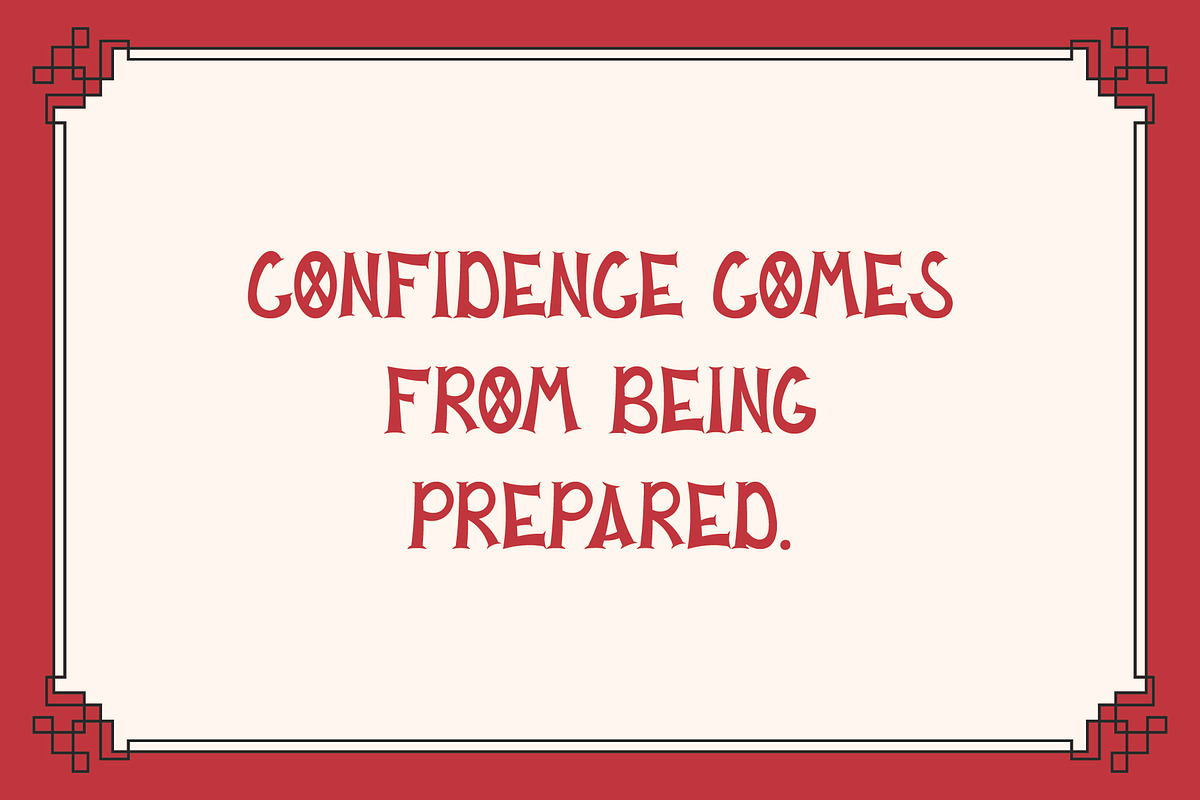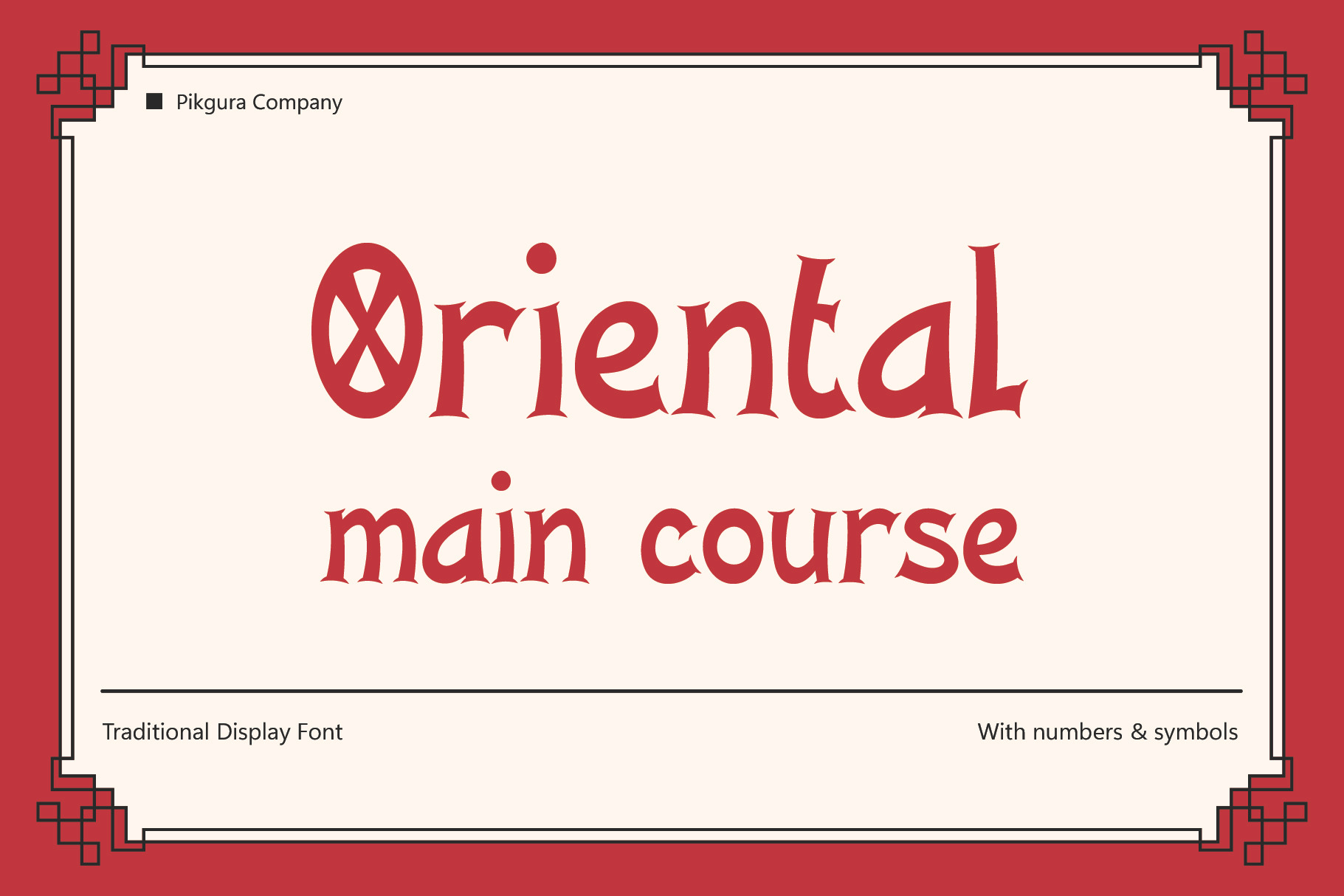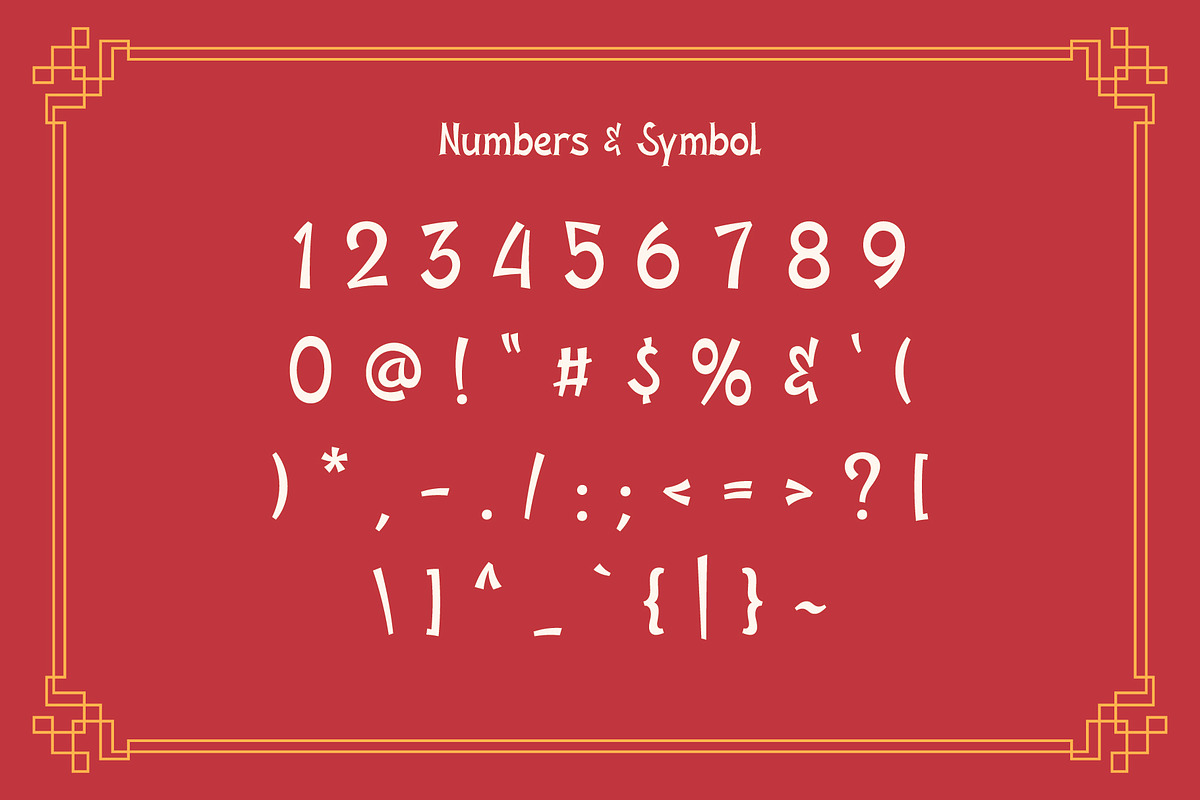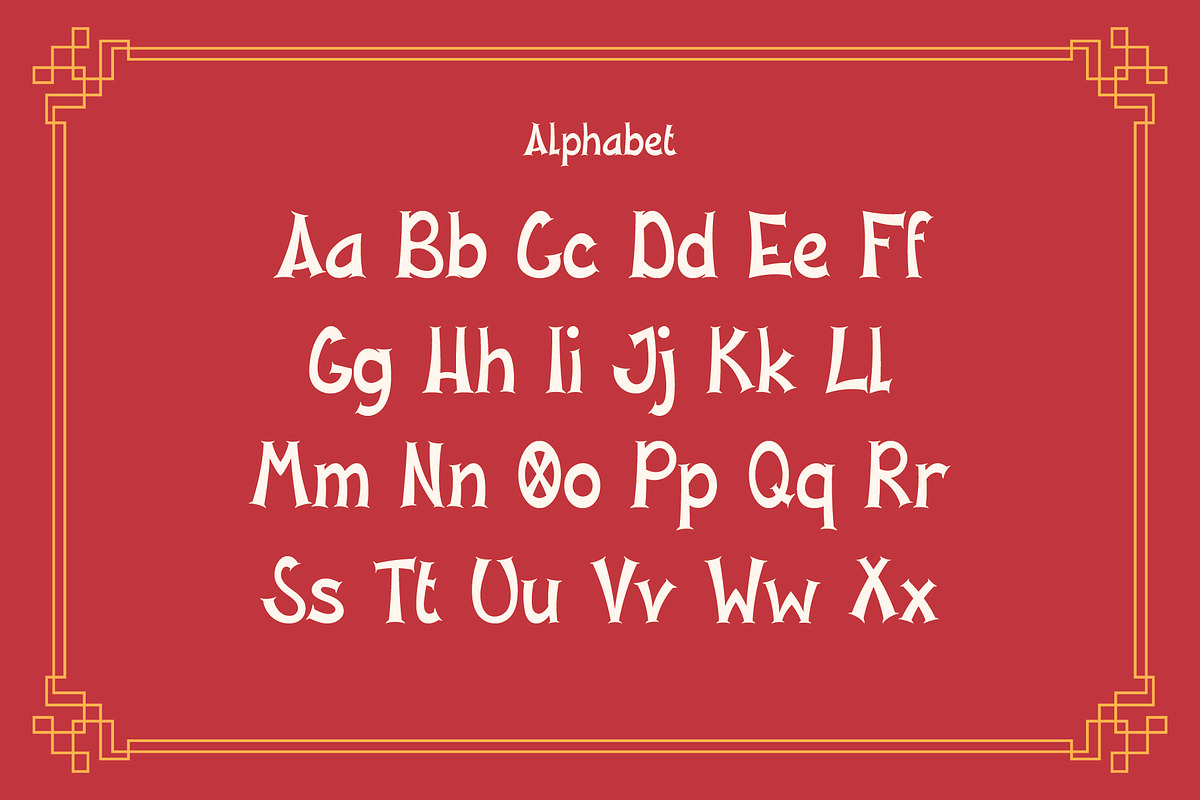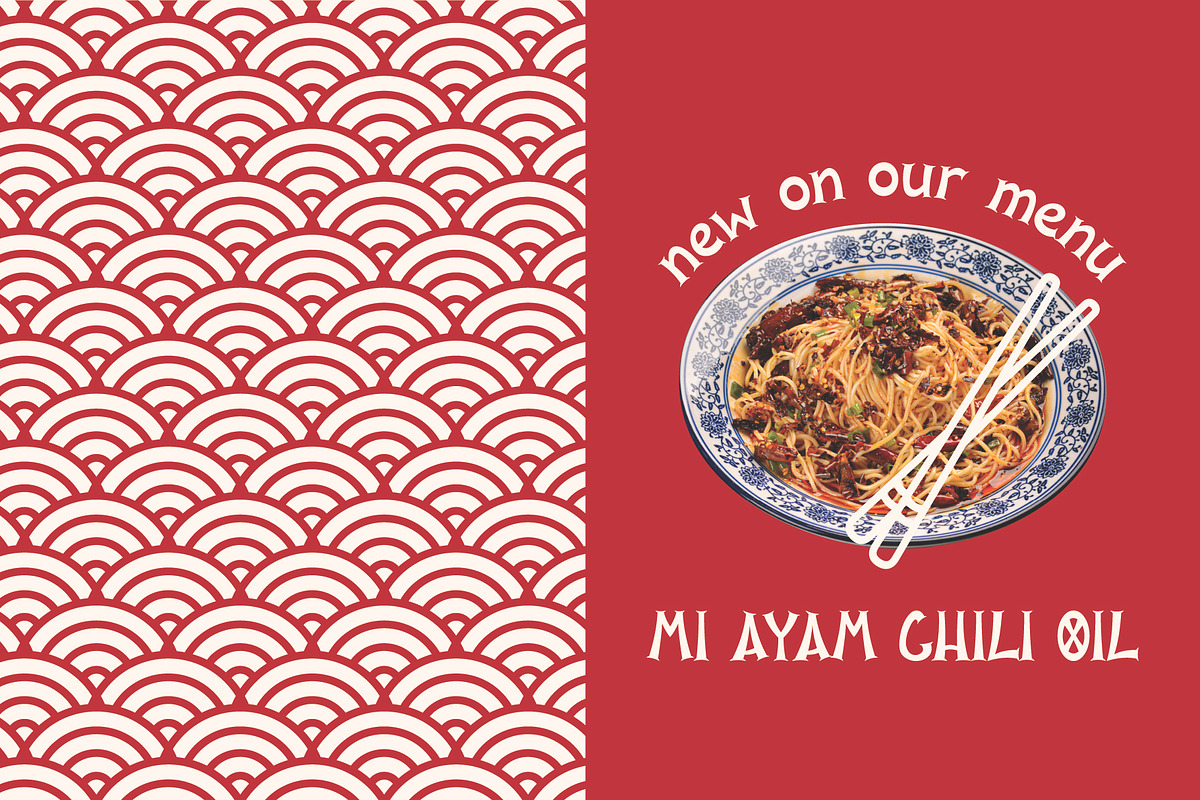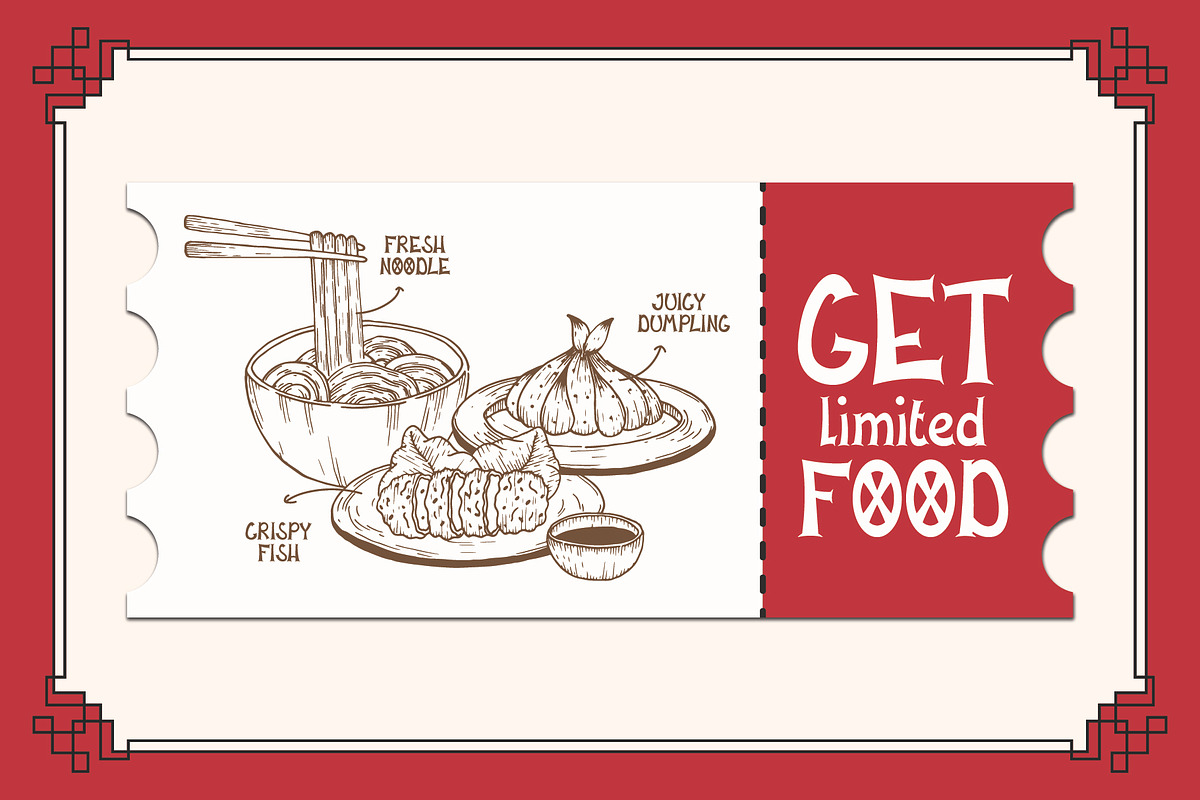
Oriental Gold - Culture Font
Whether you’re designing a wedding invitation, a restaurant menu, or a fashion brand’s logo, Oriental Gold is the perfect font to add a touch of Oriental chic to your work. With a range of characters including uppercase and lowercase letters, numbers, and punctuation marks, you’ll have everything you need to create stunning designs that stand out from the crowd.